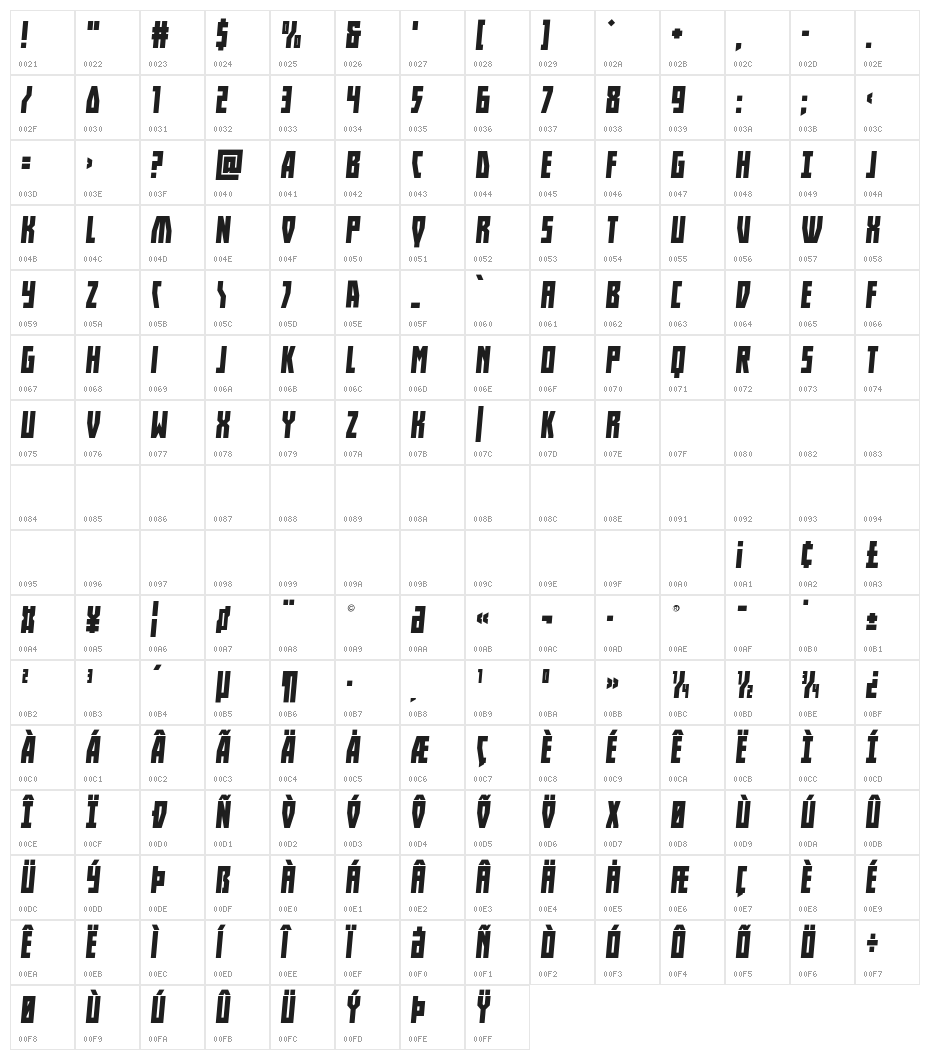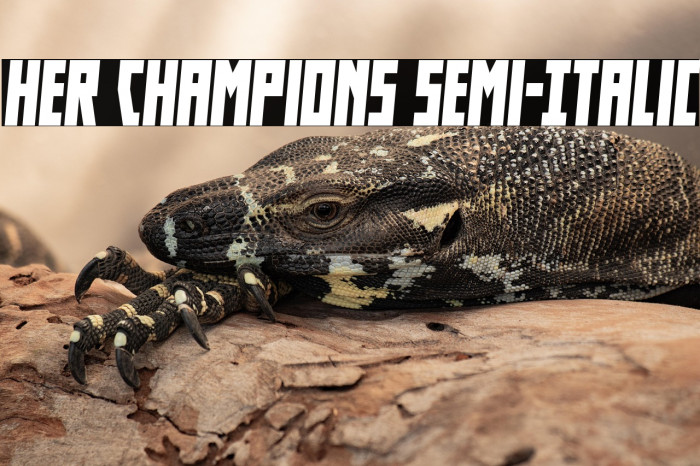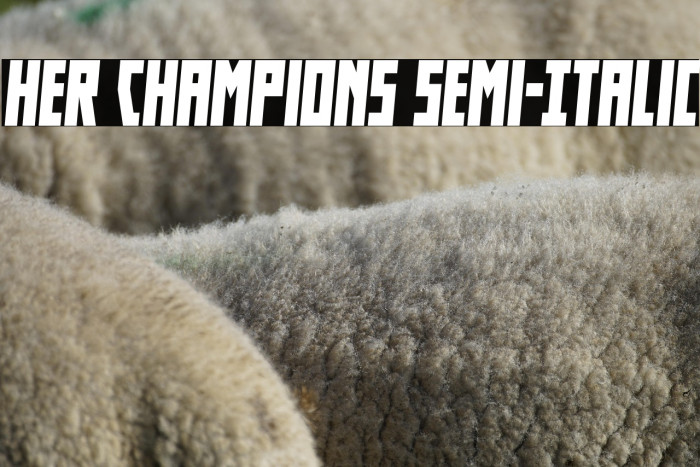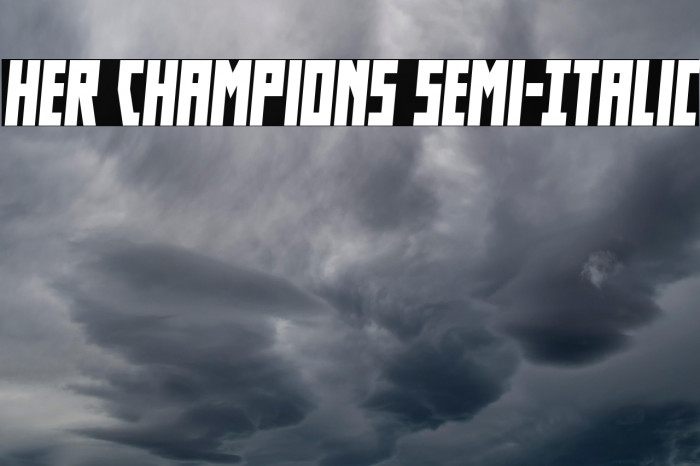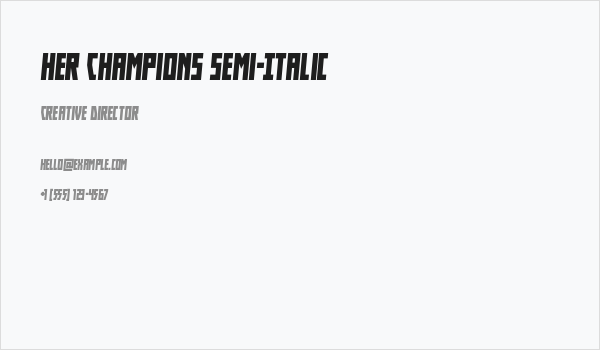
Her Champions Semi-Italic Font
Her Champions Semi-Italic Description
This font features a bold and dynamic style with a strong geometric influence. The characters are sharply angled, giving them a sense of motion and energy. The uppercase letters are particularly striking, with a consistent height and width that create a cohesive look. The lowercase letters maintain the same boldness, ensuring readability while adding a unique flair. Numbers and special characters are designed to match the overall aesthetic, making them suitable for a variety of uses. The font's semi-italic slant adds a touch of modernity, making it ideal for projects that require a contemporary and impactful appearance.
| Proposed Projects | Ideal for sports branding, posters, headlines, and any project needing a bold, energetic typeface. |